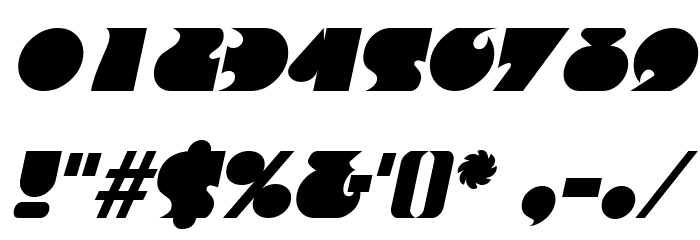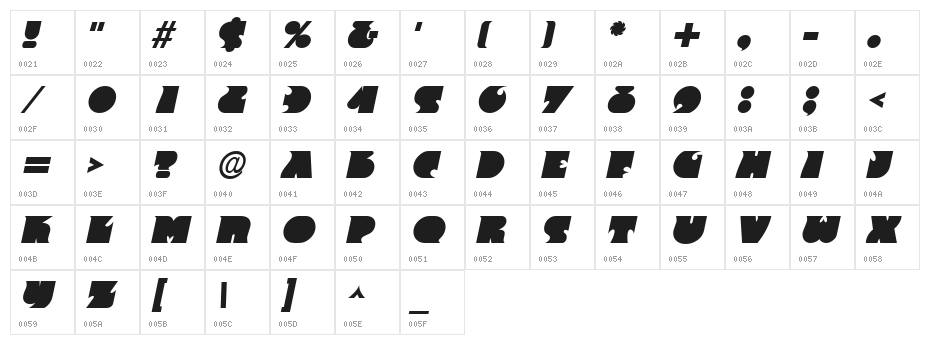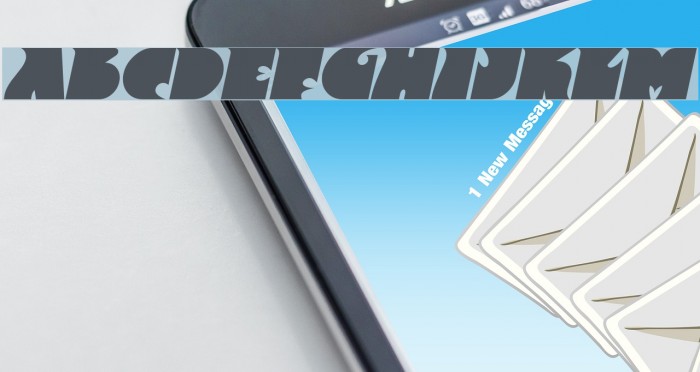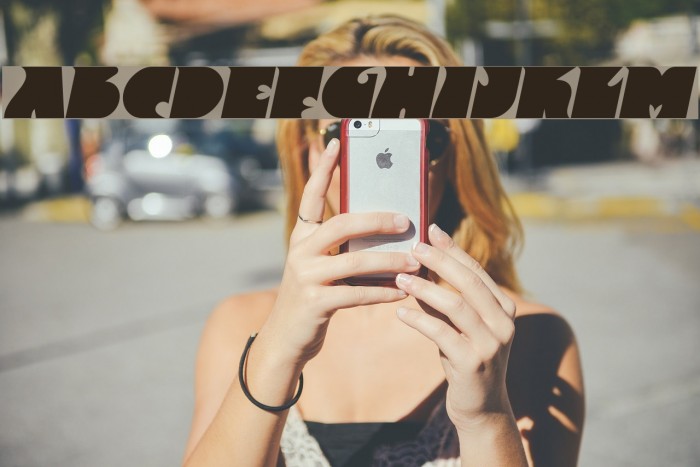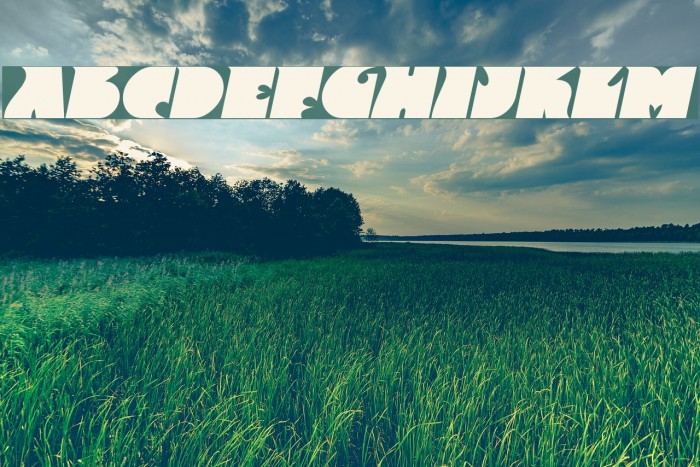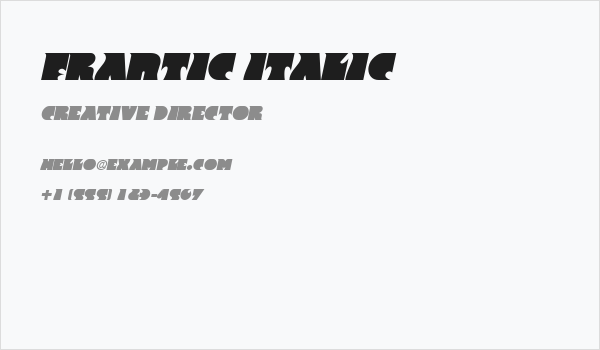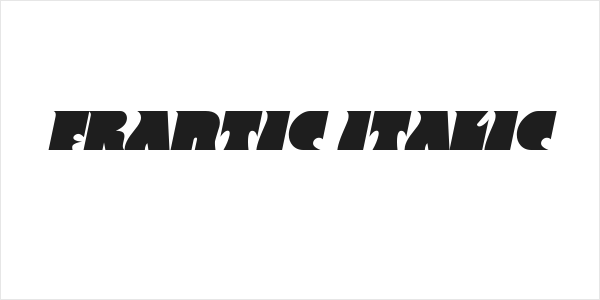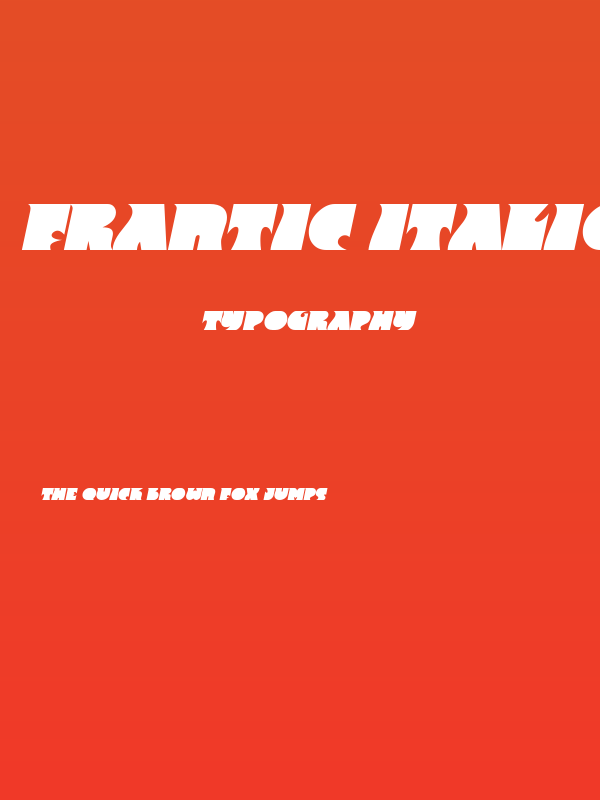
Frantic Italic Font
Frantic Italic Description
This font exhibits a bold and dynamic style with a distinctive italic slant. The characters are heavily stylized, featuring sharp angles and unique cutouts that create a sense of movement and energy. The bold weight and tight spacing contribute to its striking appearance, making it ideal for attention-grabbing designs. The font's high contrast in stroke thickness enhances its dramatic effect, while the decorative elements add a touch of flair. Its overall style is modern and edgy, suitable for projects that require a bold statement.
| Proposed Projects | Ideal for posters, headlines, branding, and any design needing a bold, modern touch. |